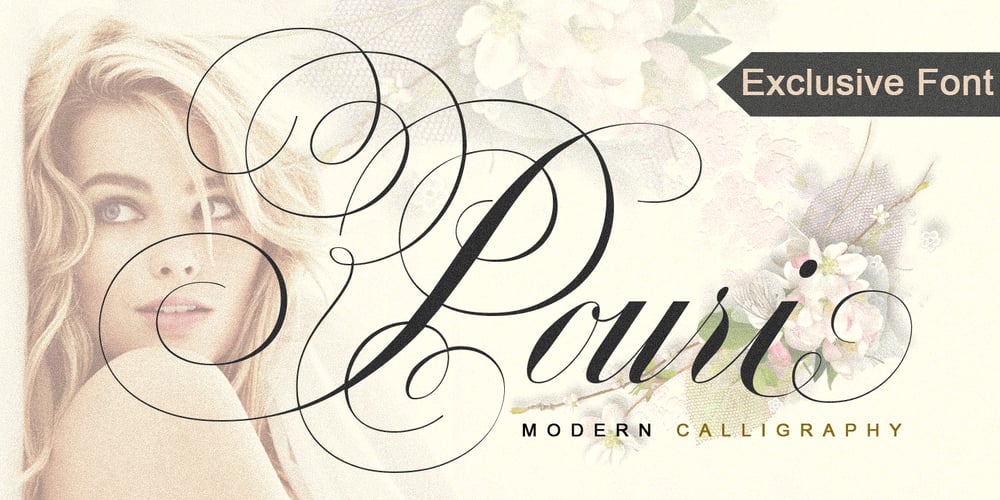
Pouri Font Family was designed by Afrizal Hidayat and published by ejhaa. Pouri contains 1 styles and family package options. Pouri is a classic script with a modern style that is very suitable for wedding media, book covers, greeting cards, logos, branding, business cards and certificates, even for any design work that requires classics, formal or luxurious looks.Pouri includes a wealth of OpenType features. If you don’t have a program that supports OpenType features like Adobe Illustrator and CorelDraw X Version, you can access all alternative glyphs using Font Book (Mac) or Character Map (Windows).